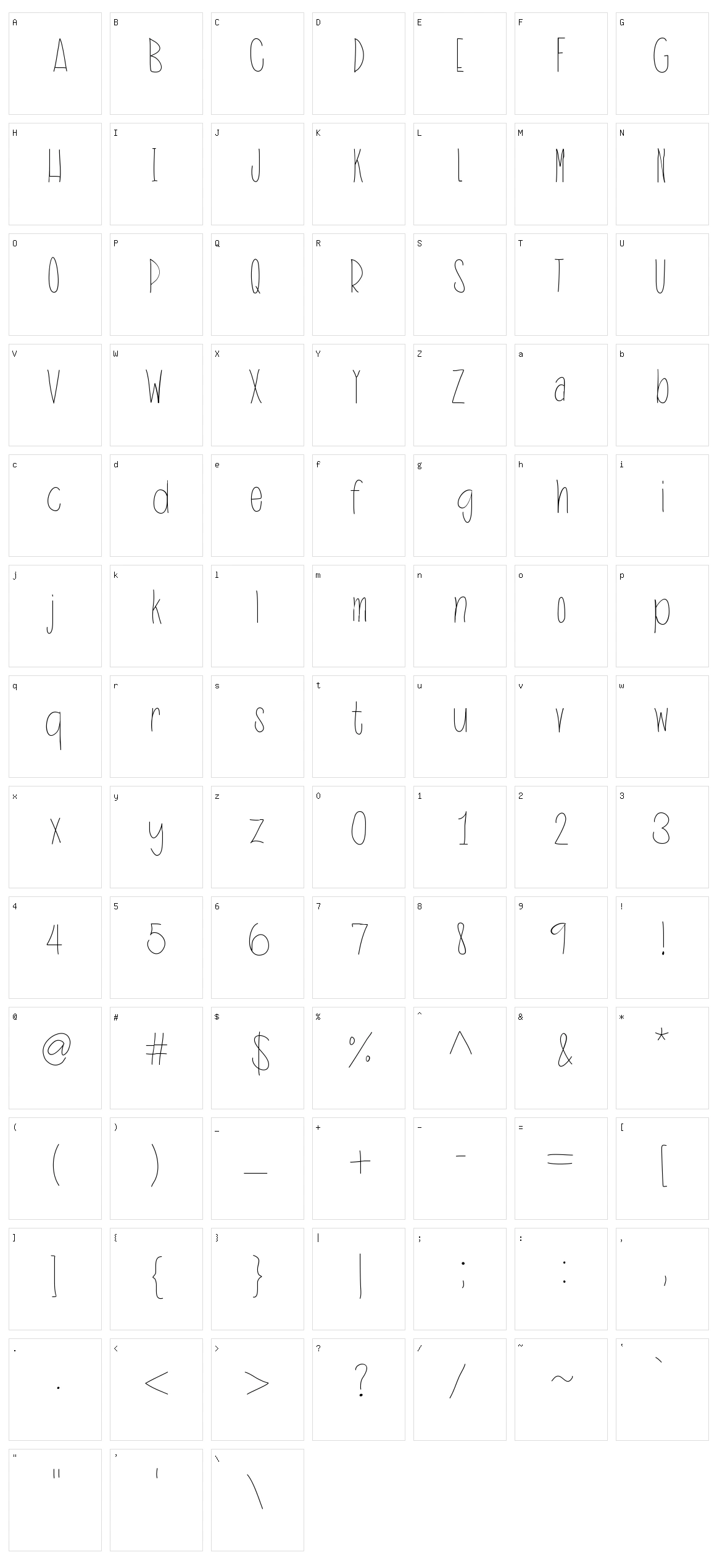
The free font Identity Theft is carefully designed by Katelyn Dancer, showcasing a thoughtful balance of creativity and usability and falls under the Script font style. When you download the ZIP file, it contains only 15.68 KB of font files, making it lightweight and quick to download. Please review the license details below to understand permitted usage and distribution rights. If license information is not available, we recommend using this font for personal projects only or contacting the author directly for commercial usage permissions.